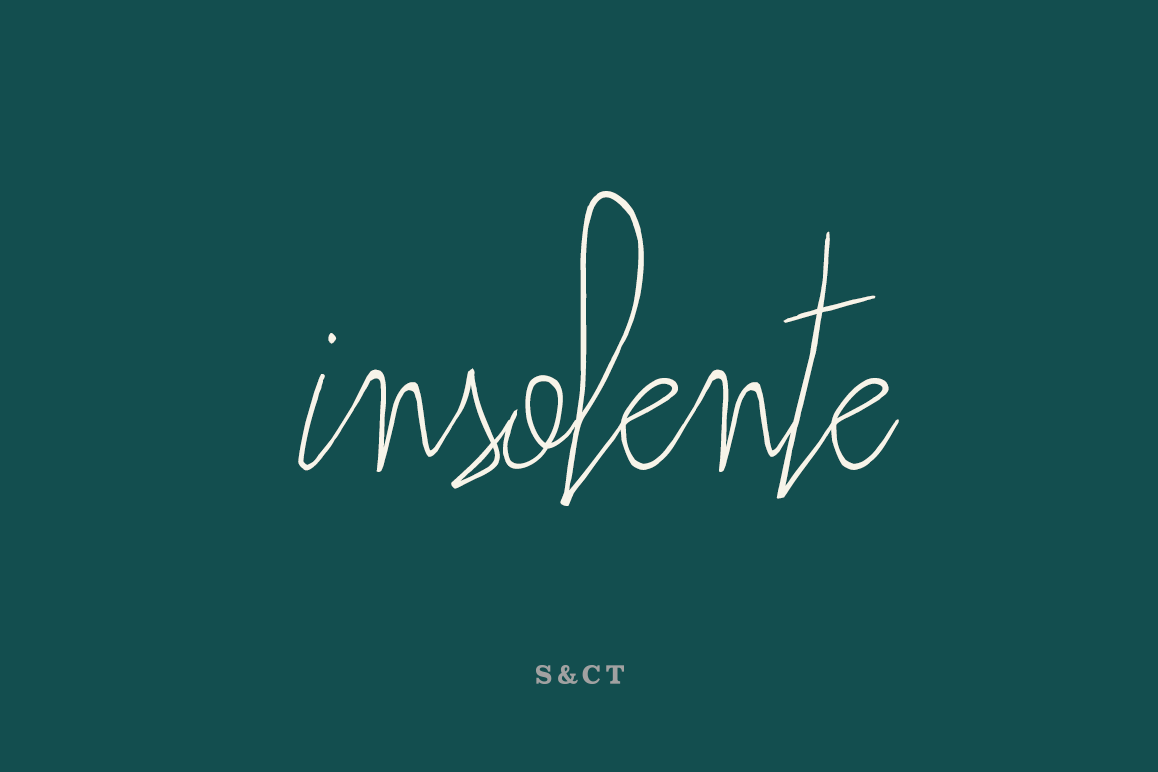
Insolente
Insolente is a versatile and realistic human script designed by Fanny Coulez and Julien Saurin in Paris, perfect for giving your designs a personal touch.
The family package includes two fonts: Insolente Regular, with ligatures and double-letter ligatures, and Insolente Alternates, with alternative glyphs for starting and ending words, and some ornaments.